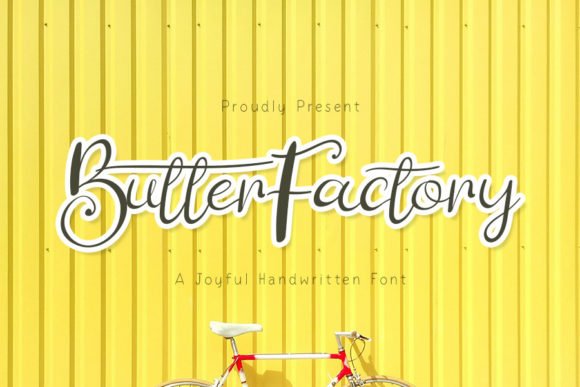
Discover the Sweetness of the Butter Factory Font
Have you ever been brainstorming a design project, flipping through font options, and suddenly, the perfect script catches your eye? It’s like stumbling upon a hidden treasure – a visual gem that elevates your entire concept. For designers, this moment is a thrill, and we’re about to share a secret that will make your next project shine: the Butter Factory Font.
This lovely and delicate script font exudes elegance and class, making it perfect for designers who crave a beautiful and refreshing look. Crafted with precision, the Butter Factory Font is designed to bring a touch of sophistication to any design. Whether you’re working on a wedding invitation, a branding project, or a digital publication, this font will add a level of refinement that’s hard to find.
With the Butter Factory Font, you’ll have the power to create designs that are both timeless and trendy. Its versatility makes it an invaluable asset for any designer looking to elevate their work and leave a lasting impression.
Butter Factory Font Key Features
- Font Family: The Butter Factory Font is a unique, hand-drawn font family that includes 6 styles: Light, Regular, Medium, Bold, Italic, and Outline.
- Character Set: Includes a comprehensive set of characters, including uppercase and lowercase letters, numerals, punctuation marks, and special characters.
- Unique Characteristics: The Butter Factory Font features a distinctive, hand-drawn aesthetic with subtle texture and imperfections, giving it a unique and organic feel.
Designer Review: Butter Factory Font
I’ve had the chance to work with the Butter Factory Font, and here’s my honest review.
- Unique and playful design – the font’s distinctive style is sure to grab attention.
- Highly legible – even at smaller font sizes, the text remains clear and easy to read.
- Compatible with a wide range of applications – from digital to print, the font performs well.
- May not be suitable for formal or professional projects – the font’s playful vibe might not fit the tone.
- Lack of extensive language support – may not be the best choice for projects requiring multiple languages.
- May require additional adjustments for optimal performance on certain devices.
Overall, the Butter Factory Font is a fun and creative addition to any design project. While it may not be the best choice for every situation, it’s a great option when you need a unique and eye-catching font. Just be mindful of its limitations, and you’ll be golden!
The Butter Factory Font is ideal for creative and playful designs, such as:
- Food branding and packaging
- Home decor and furniture design
For best results, use the Butter Factory Font in conjunction with bright and playful colors, and experiment with different font sizes and styles to add visual interest to your design.
Alternatives to Butter Factory Font
Great Vibes is a modern, elegant script font perfect for adding a touch of sophistication to designs. It is ideal for use in headings, titles, and quotes. Great Vibes is a more refined and polished alternative to Butter Factory Font, with a more delicate and flowing feel.
Carolyna Pro is a beautiful, high-end script font with a luxurious feel. It is suitable for use in high-end branding, advertising, and editorial designs. Carolyna Pro is a more premium alternative to Butter Factory Font, with a more complex and ornate design.
Alex Brush is a elegant, handwritten script font with a personal touch. It is ideal for use in invitations, wedding designs, and other creative projects. Alex Brush is a more rustic and handwritten alternative to Butter Factory Font, with a more natural and imperfect feel.